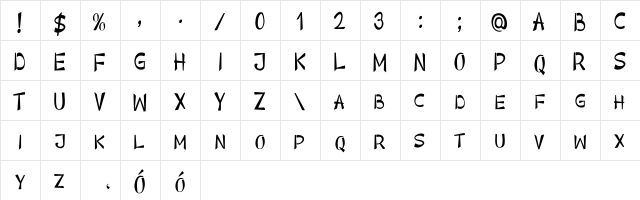
Bang Bang Regular
Design Context for Bang Bang Typeface
Bang Bang takes a measured approach to typography — its balanced proportions and neutral character make it a reliable workhorse for both digital and print work.
Pro Tip: Use Bang Bang in both headline and body roles to test its range before committing to a single application.